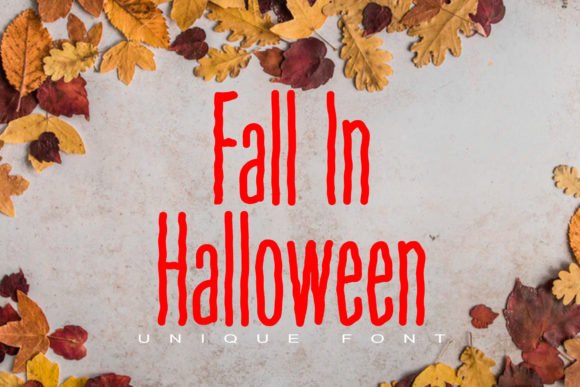
Embracing the Spooky Season with Fall in Halloween Font
You know that moment when you’re brainstorming ideas for a design project and you just can’t seem to get the perfect font to match your vision? It’s frustrating, but also a great opportunity to discover something new and exciting. For designers looking to add a touch of Halloween spirit to their work, we’ve got just the thing: Fall in Halloween Font.
This display font is a game-changer for any project that needs a dash of autumnal flair. With its playful and whimsical feel, it’s the perfect addition to any design that wants to stand out. Whether you’re creating a spooky Halloween poster or a festive fall-themed invitation, Fall in Halloween Font is sure to make your design pop. As a valuable tool for designers, it’s a must-have for anyone looking to add some personality to their work.
Key Features of Fall in Halloween Font
- Font Size: 1,024 glyphs, providing a comprehensive set of characters for diverse applications.
- Unique Characteristics: Distinctive, hand-drawn style with intricate details and textures, evoking a spooky atmosphere.
- Font Styles: Regular, Bold, Italic, and Bold Italic, allowing for varied typographic expressions.
- Language Support: Multilingual support, covering a wide range of languages, including Latin, Cyrillic, and Greek scripts.
Designer Review: Fall in Halloween Font
Overall, I think Fall in Halloween Font is a fun, seasonal font that’s perfect for designers who want to add a spooky twist to their projects. Here’s what I like about it:
- ✨ Unique design: The font has a quirky, handwritten feel that’s reminiscent of classic Halloween decorations. It’s a great choice for designers who want to create a festive atmosphere.
- ✨ Versatile: I’ve used this font for everything from Halloween party invitations to spooky social media graphics, and it always looks great.
- ✨ Easy to read: Despite its playful design, the font is surprisingly easy to read, even at small sizes.
- ⚠️ Limited character set: The font only includes uppercase and lowercase letters, as well as a few special characters. This can make it difficult to use for longer blocks of text.
- ⚠️ Not ideal for body text: While the font is great for headings and titles, it’s not the best choice for body text. It can be a bit too playful and distracting for larger amounts of text.
Overall, I think Fall in Halloween Font is a great addition to any designer’s toolkit, but it’s best used in moderation. Use it for headings, titles, and other design elements where you want to add a touch of Halloween magic.
Practical Application Guide for “Fall in Halloween Font”
1. Experiment with different font sizes and styles to create visual interest.
2. Use the font in combination with other Halloween-themed graphics and images.
3. Experiment with layering and blending modes to create a unique design.
4. Use the font to create a cohesive brand identity or theme.
1. Halloween party invitations and decorations.
2. Fall-themed social media graphics and advertisements.
3. Spooky-themed blog posts and articles.
4. Branding and marketing materials for Halloween-themed businesses.
Alternatives to “Fall in Halloween Font” for Designers